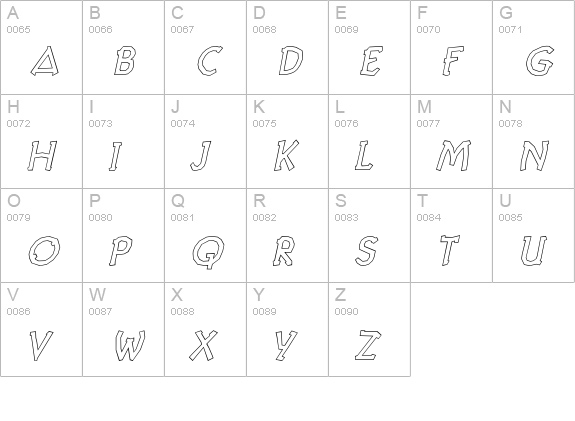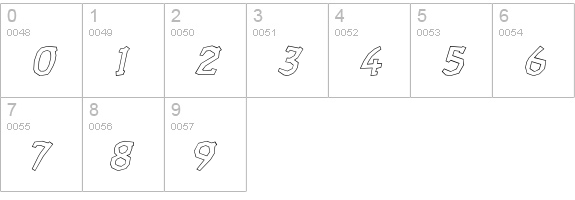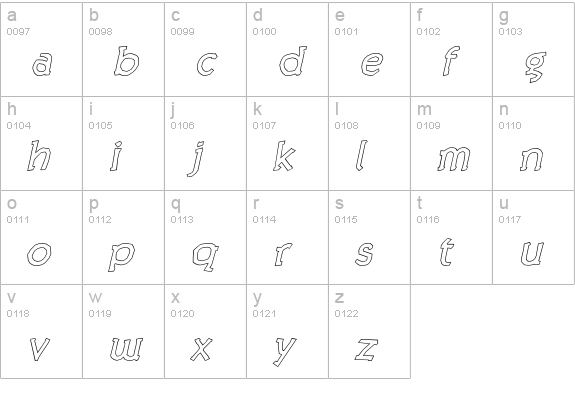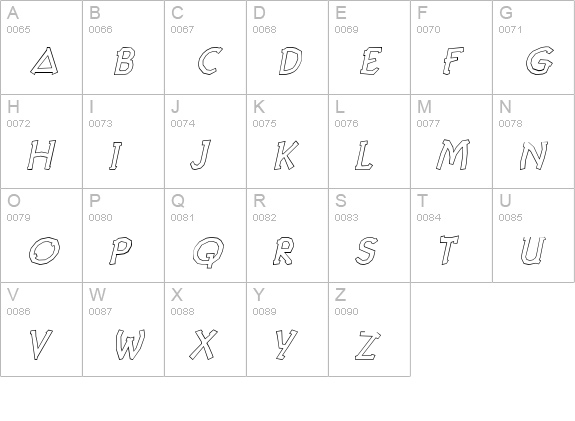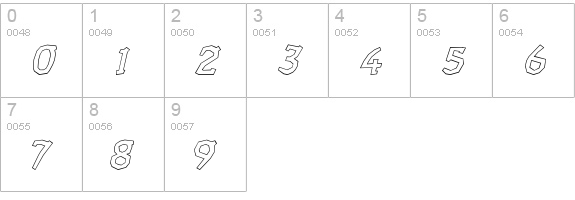
Twig Bold Inline Oblique is a strong, high-contrast, italic variant in the Twig typeface family \xE2\x80\x94 well suited to headlines, attention-grabbing titles, and strong calls-to-action.
Twig Bold Inline Oblique font is a captivating and stylish typeface that exudes elegance and sophistication. Its unique combination of boldness and slanted inline strokes creates a visually stunning effect that is sure to capture attention. With its sleek and modern design, this font is perfect for various design projects, such as branding, logos, posters, and more. The italicized nature of the oblique style adds a touch of dynamism and flair to any text, making it stand out in a crowd. Whether used for titles or body text, Twig Bold Inline Oblique font brings a sense of energy and movement to your designs. One of the best features of this font is that it is freely available to download at FontsMarket.com. This means that you can easily access and utilize this exceptional typeface without any hassle. Its availability as a free download allows for greater creative freedom, as you can experiment and explore the various ways in which Twig Bold Inline Oblique font can enhance your designs. The versatility of Twig Bold Inline Oblique font ensures that it can be applied to a wide range of design projects, from fashion and beauty to technology and beyond. Its clean and crisp lines, combined with the unique inline detailing, make it a perfect choice for both print and digital mediums. So, if you are looking for a font that effortlessly combines boldness, elegance, and a touch of modernity, look no further than Twig Bold Inline Oblique. With its free availability at FontsMarket.com, you can easily elevate your design projects and make a lasting impression.